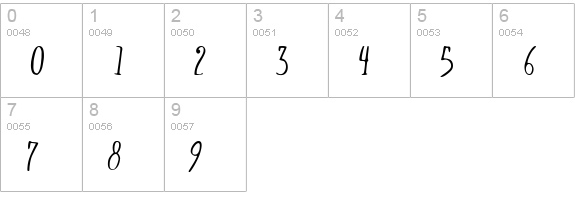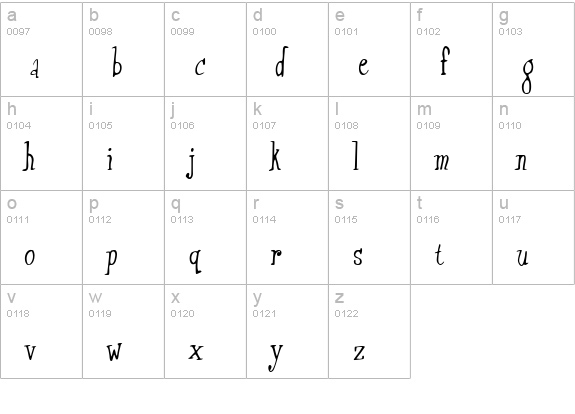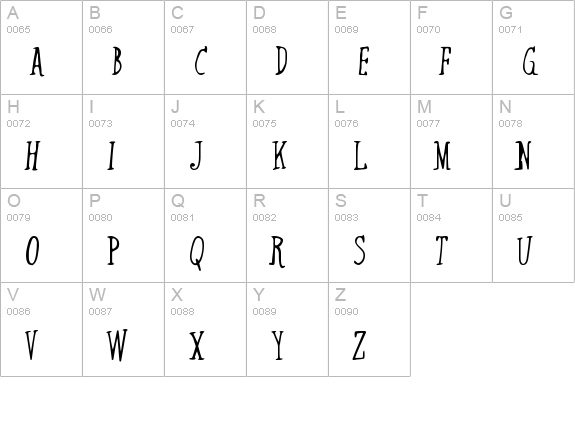
Xtraflexidisc Font Details
Xtraflexidisc font is a versatile and modern typeface that exudes creativity and playfulness. With its unique and eye-catching design, Xtraflexidisc is sure to make your projects stand out. The font features a dynamic and flexible style that can be used for a wide range of design projects, from logos to posters to social media graphics. What sets Xtraflexidisc font apart is its ability to add a touch of fun and energy to any design. The fluid lines and playful curves of the letters give this font a lively and dynamic feel that is perfect for projects that require a sense of movement and excitement. Best of all, Xtraflexidisc font is available for free download at FontsMarket.com. This means that you can easily access this amazing font and start using it in your projects right away, without any cost. Don't miss out on this fantastic opportunity to add a fresh and modern touch to your designs with Xtraflexidisc font. Download it today and let your creativity shine!